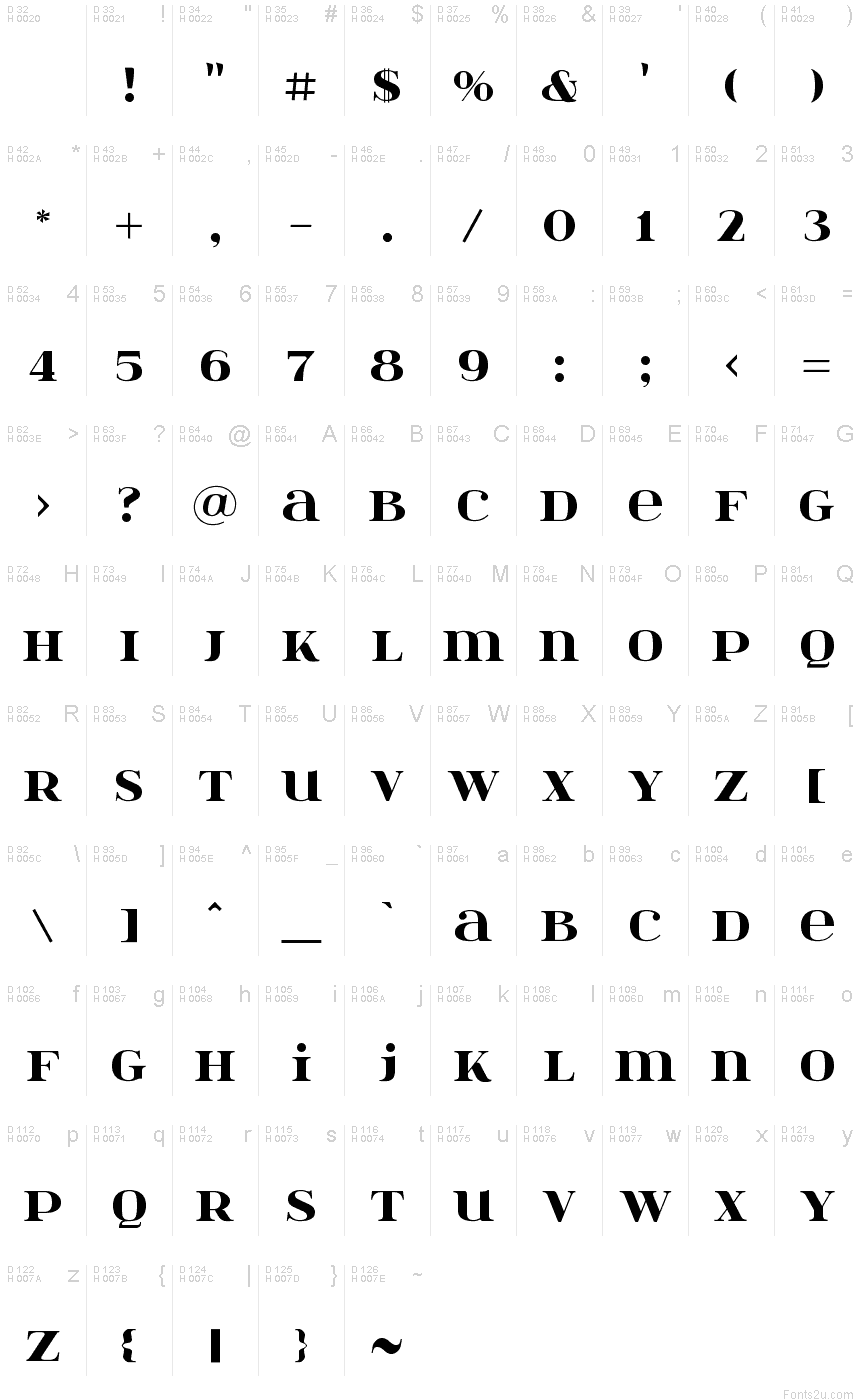
itsadzoke
Itsadzoke by Gluk is a free modern display serif with dramatic thick-to-thin strokes and broad, sculptural forms. Its fine hairlines meet rounded curves with crisp, abrupt joins. The lettering feels elegant but slightly unconventional thanks to its exaggerated proportions and small rounded details.
Fashion branding and literary publishing draw on the same formal silhouette for very different settings. On perfume packaging, event posters, or album artwork, the oversized curves can become part of an emblem or frame for photography rather than serving only as text.